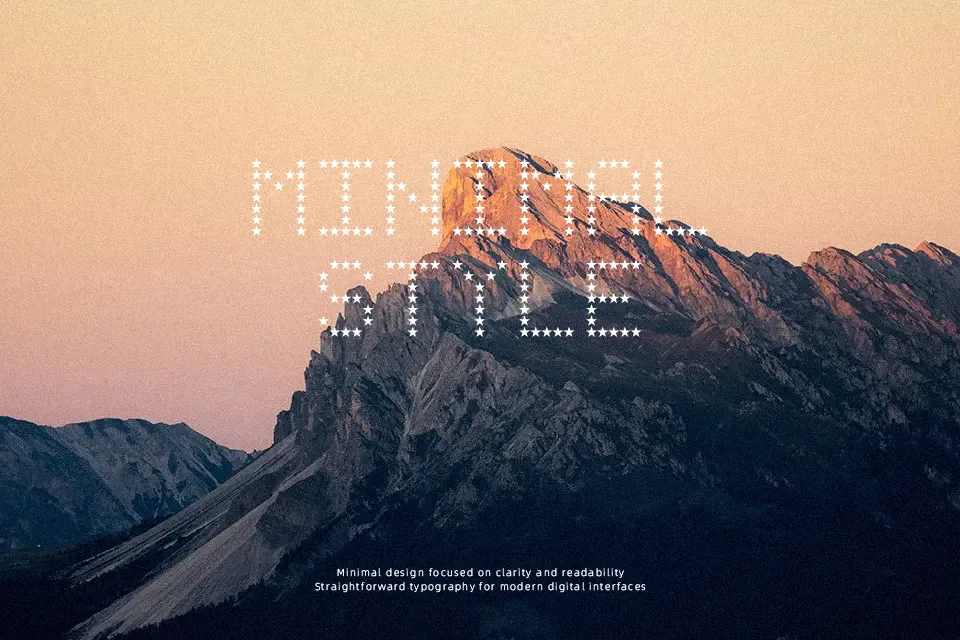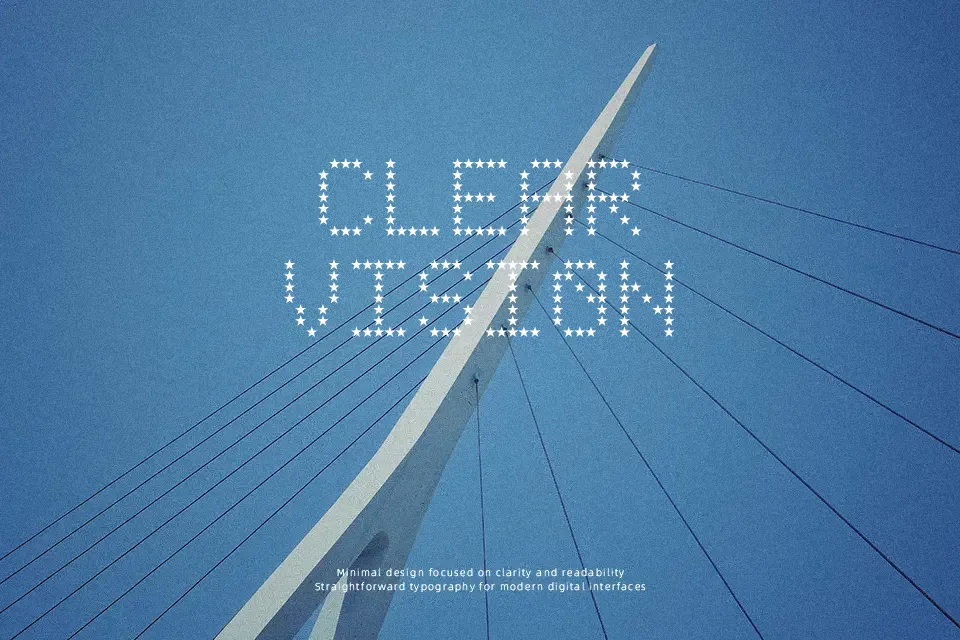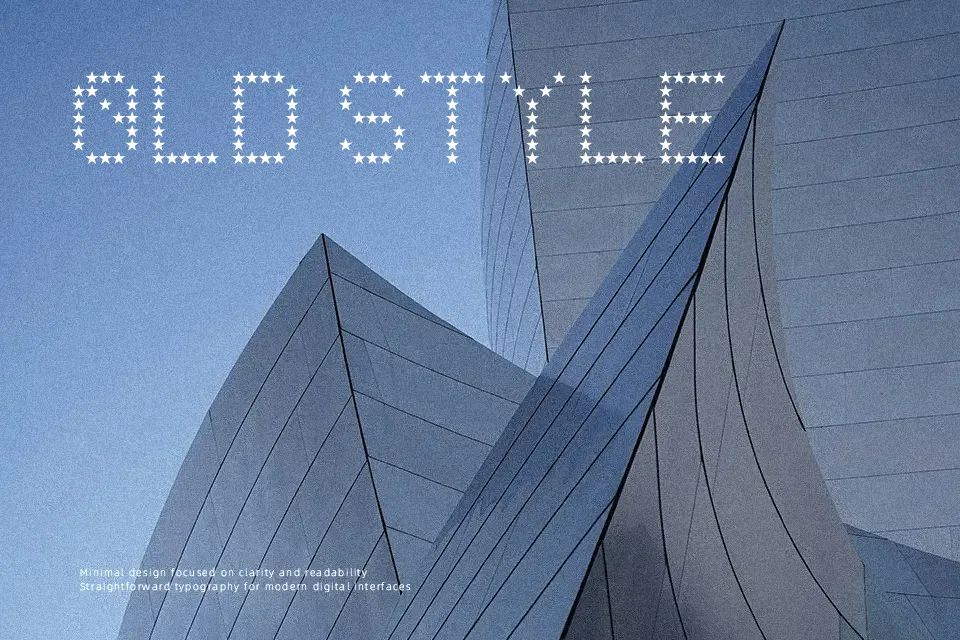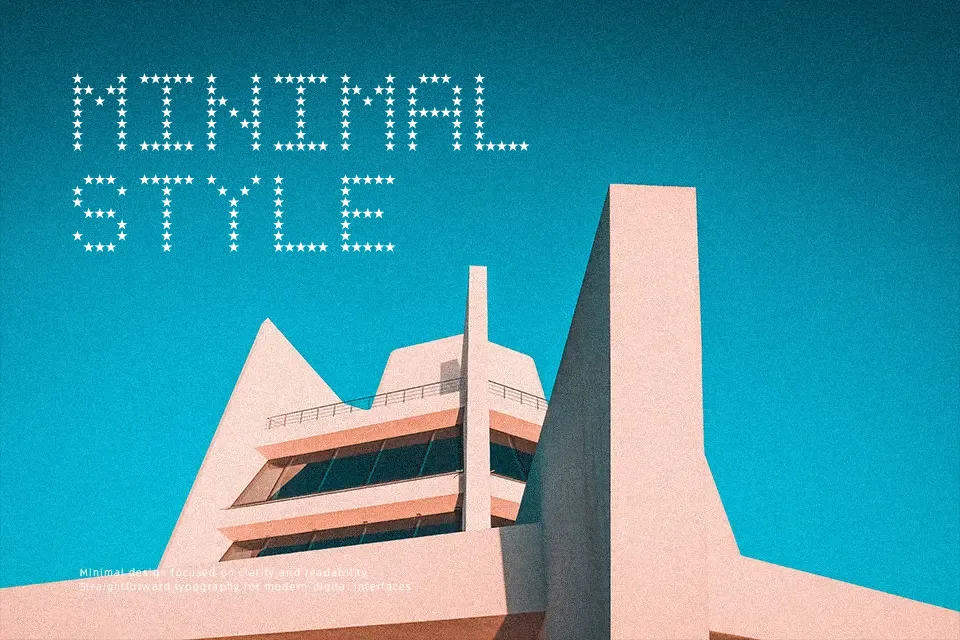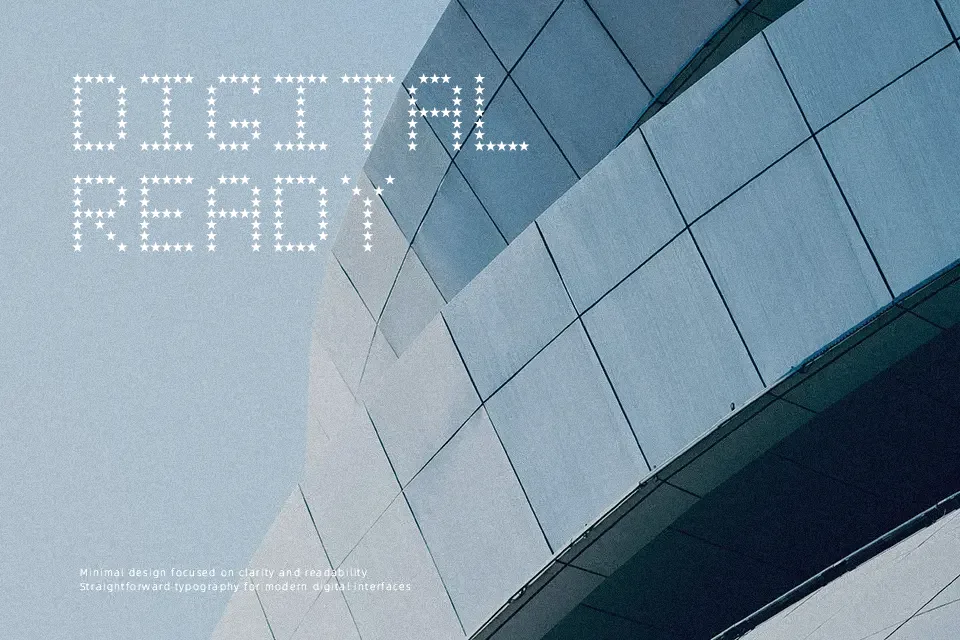
Stars Revenge Font
Designed by Mandy Smith
Stars Revenge Font features a modular display construction where individual five-point star units form the structural strokes of each glyph. Characters maintain consistent geometric proportions and wide, blocky outlines dictated by the underlying grid alignment. Spacing between letterforms remains uniform and open, allowing the repetitive star motifs to stand out crisply at substantial display sizes. While this decorative styling produces strong thematic impact for festival flyers, gaming overlays, and novelty merchandise, dense compositions reduce legibility when viewed from a distance. The intricate star elements become indistinct at smaller point sizes, making the typeface impractical for continuous paragraph reading or compact body text.
Best For: arcade game headlines, music festival posters, novelty apparel prints, themed party invitations
Not Ideal For: long body text, corporate annual reports, mobile app navigation labels, legal documentation
Perfect for advertising, gaming, and headline, with a bold and decorative style.